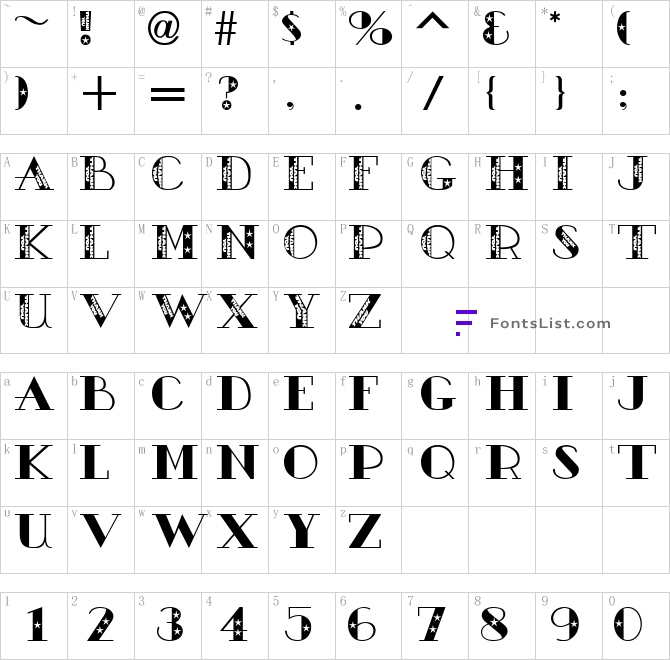
AC4-ThankYou.ttf is a very beautiful artistic font, AC4-ThankYou.ttf is widely used in the design and printing of various books and pictures,AC4-ThankYou.ttf has a strong visual impact,AC4-ThankYou.ttf is a commonly used font in newspapers, magazines and books, and is used in posters, e-commerce Poster design, store design, logo design, font design and other fields.AC4-ThankYou.